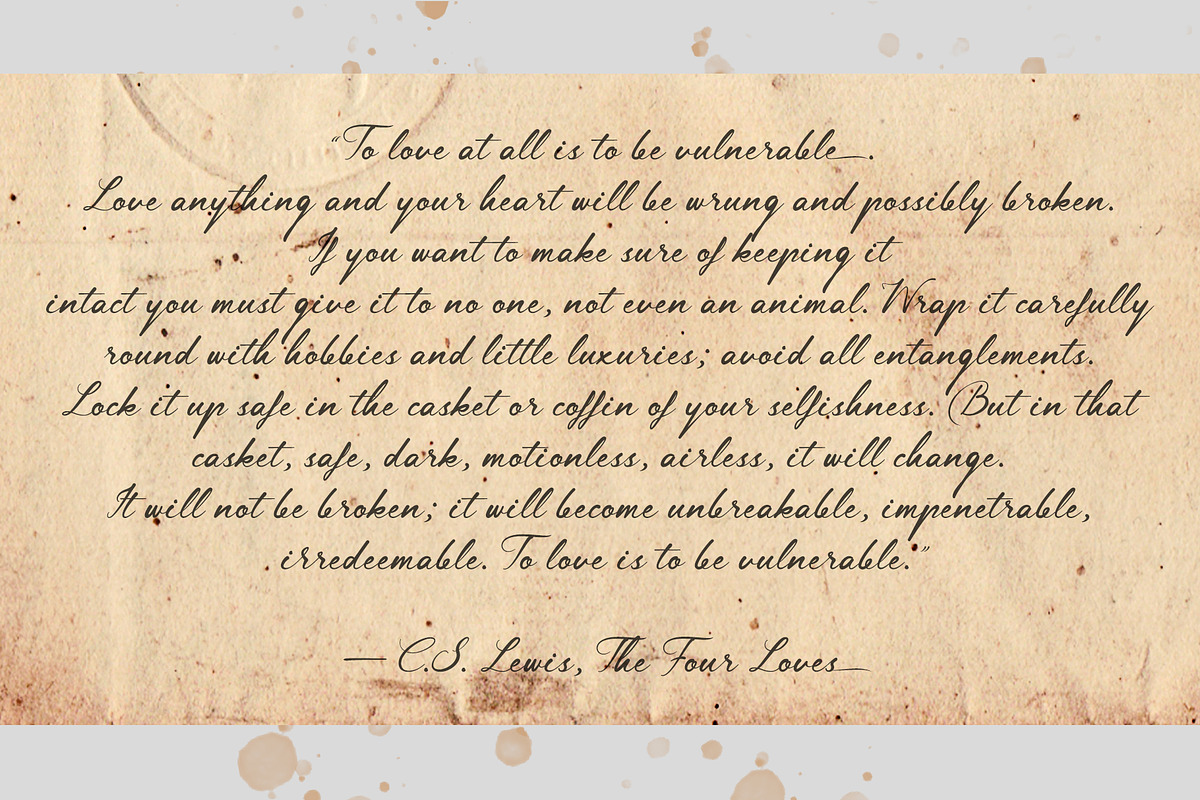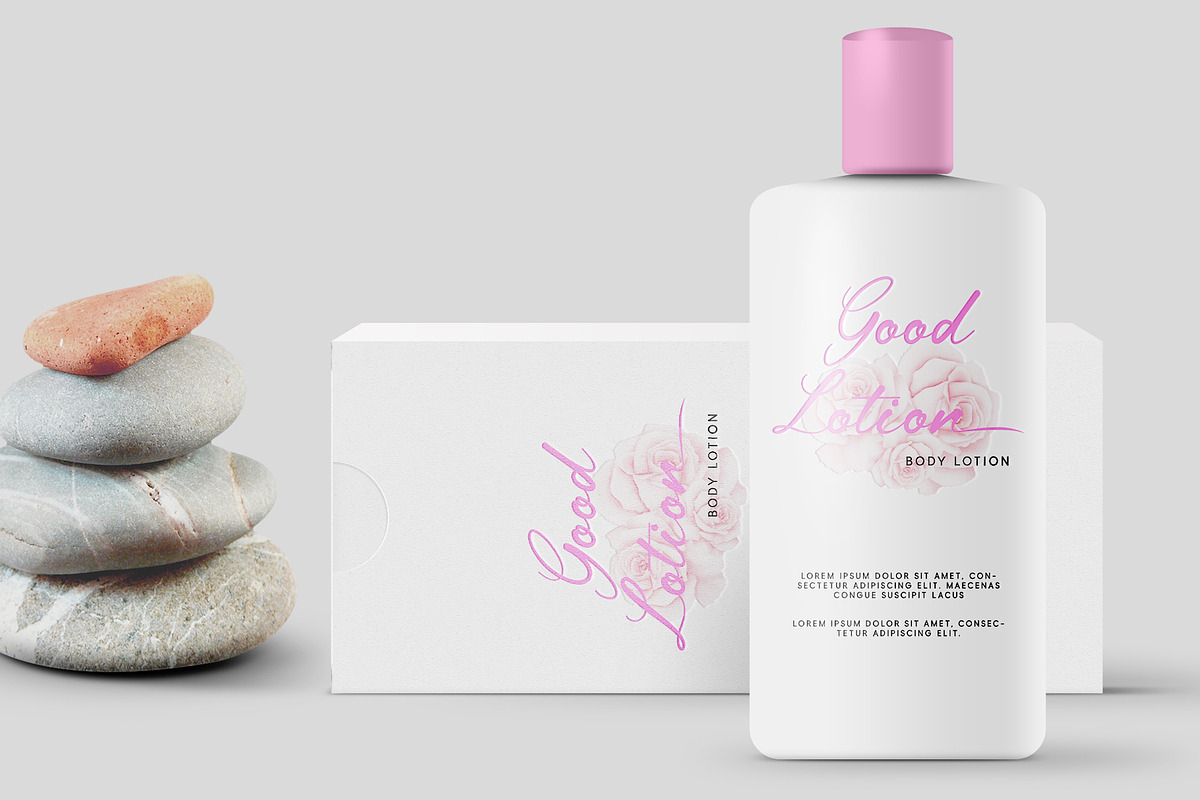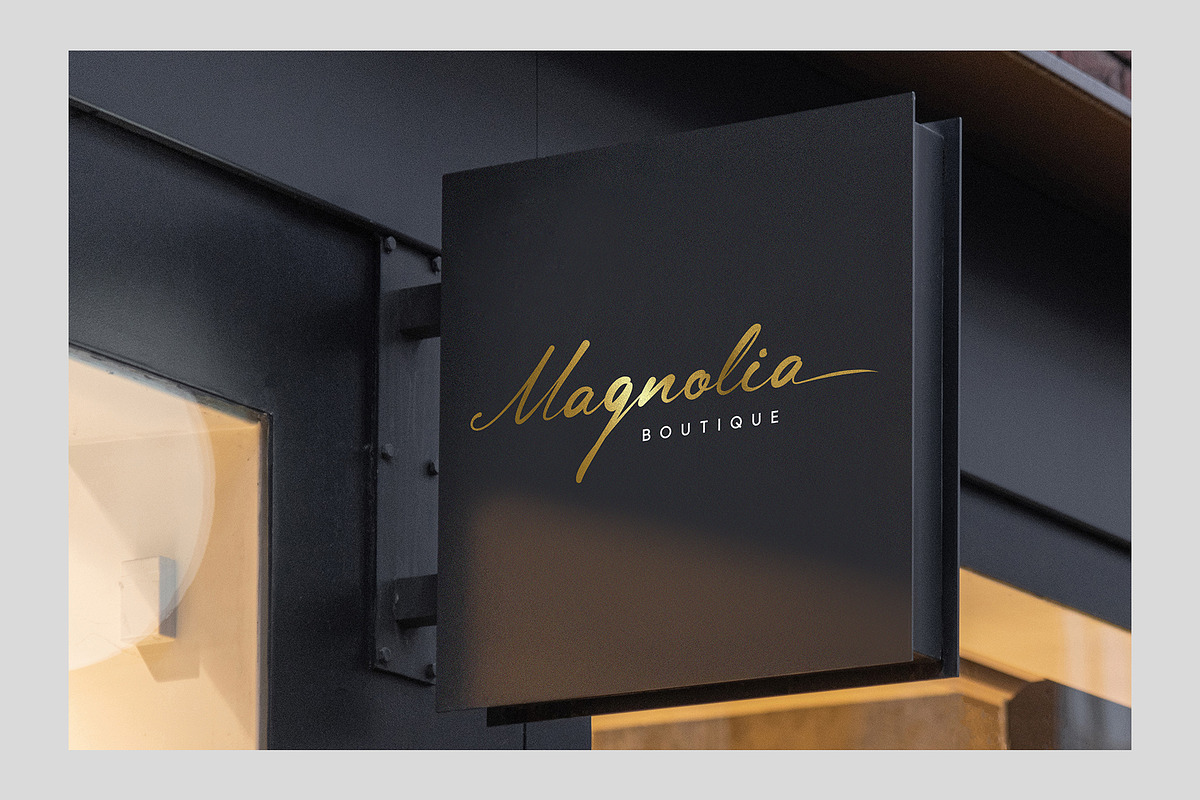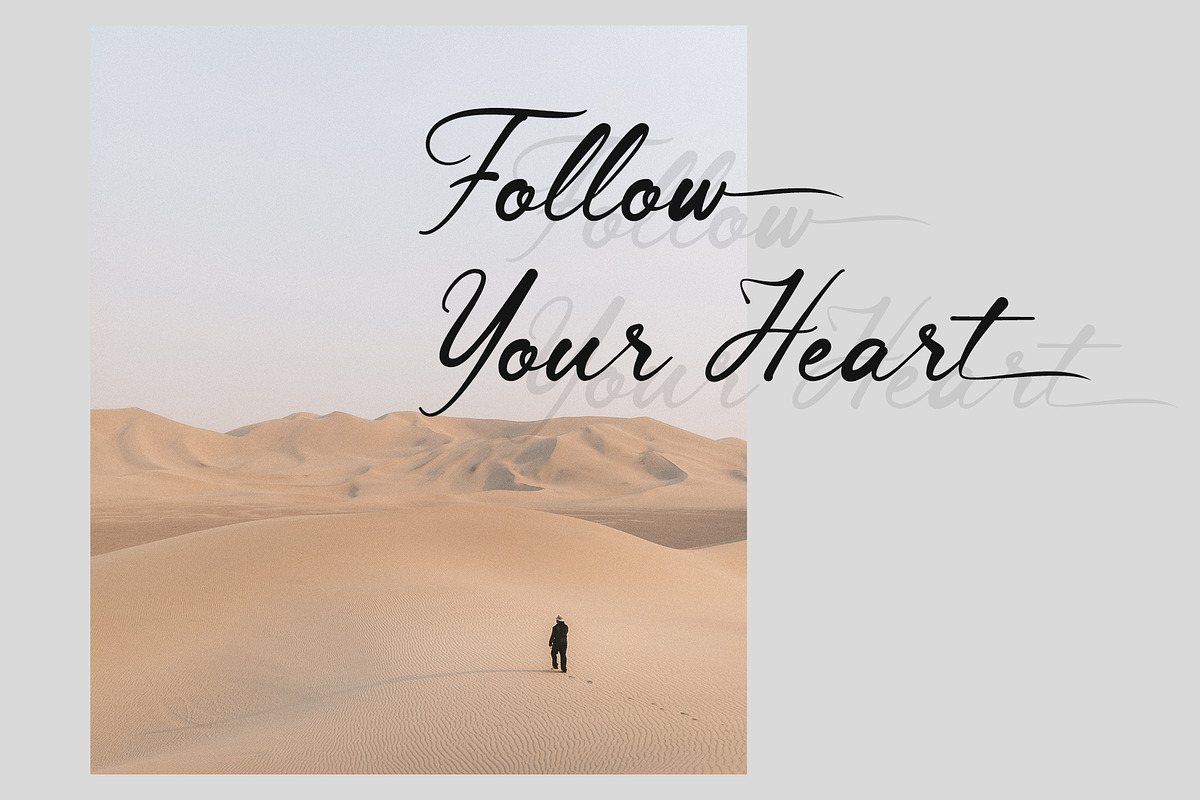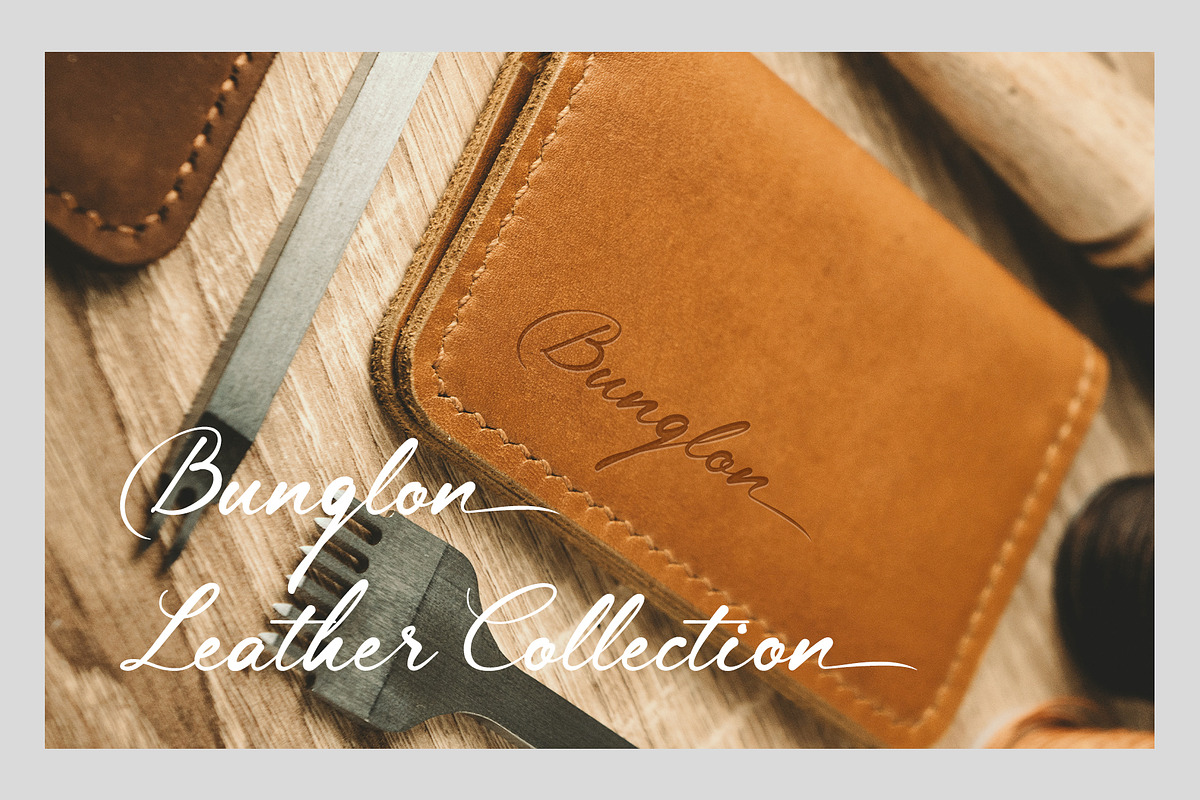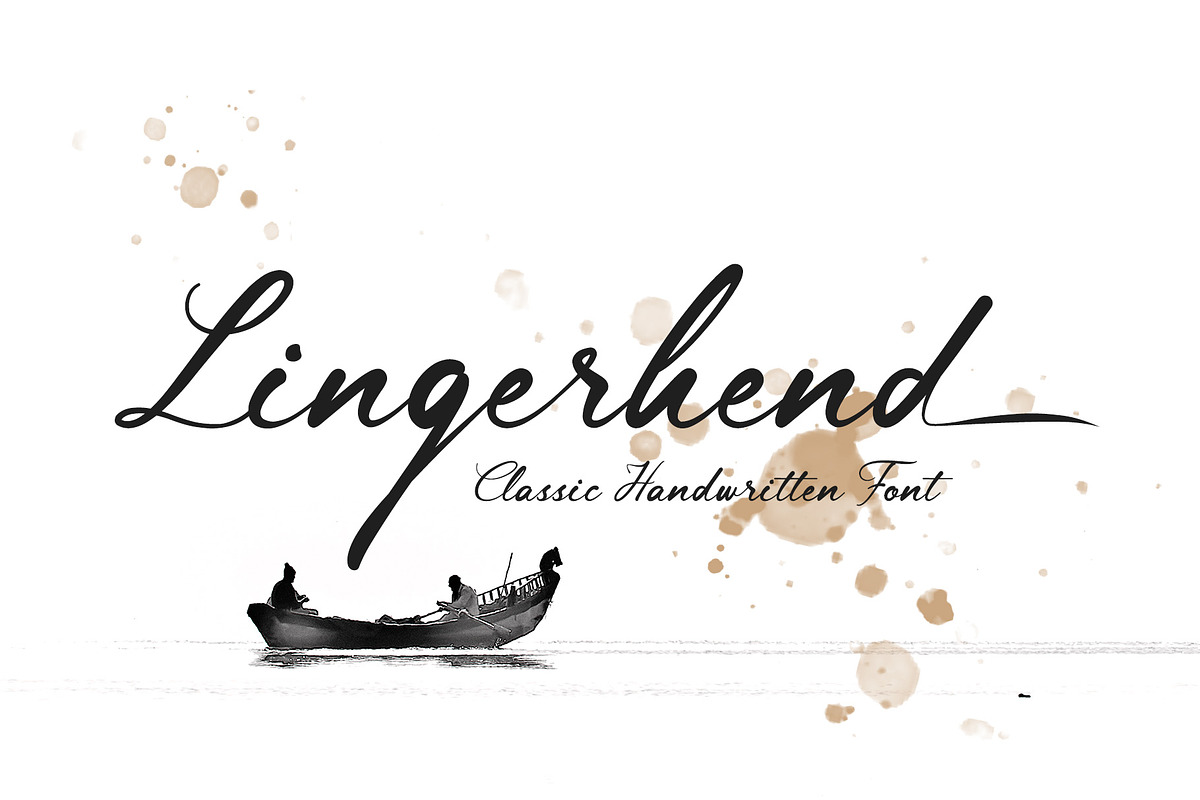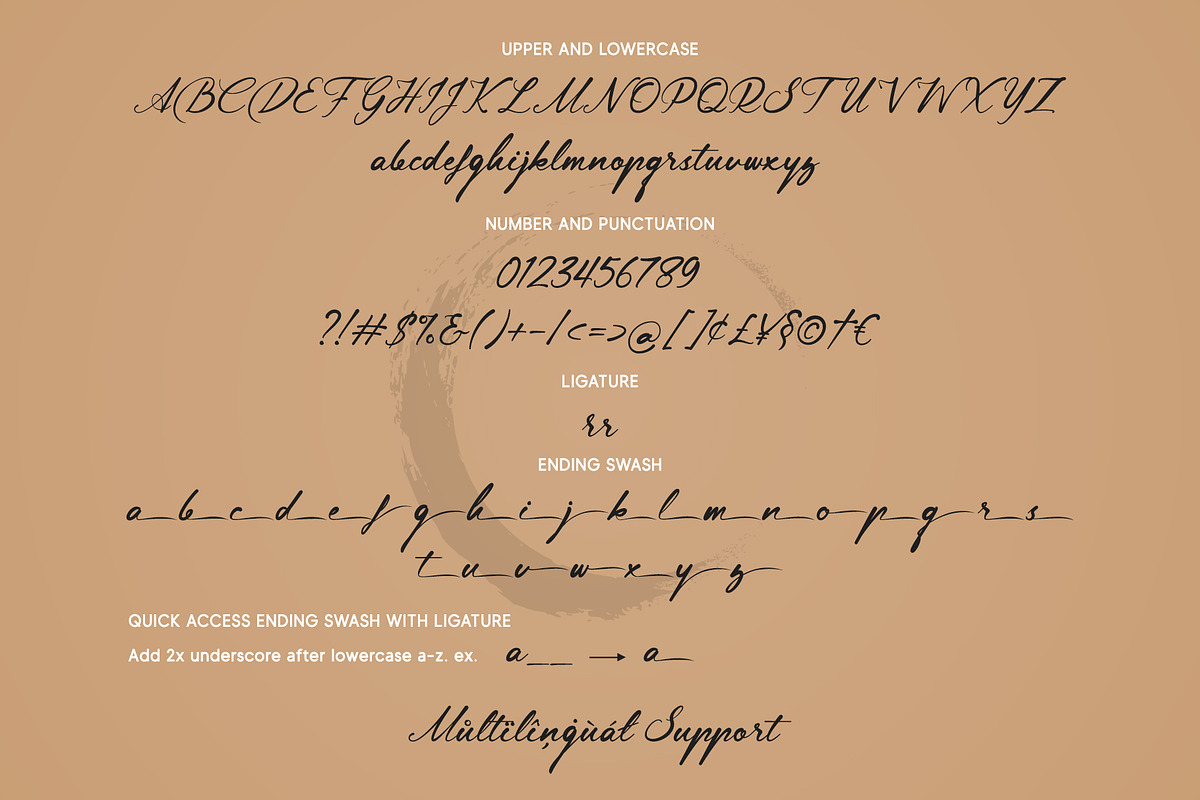
Lingerhend | Classic Script
Lingerhend is a classic handwritten script font. It’s the perfect font for wedding invitations, stationery, photography, social media posts, product packaging, greeting cards, and much more!
Quick access swash
- Add 2x underscore after lowercase a-z. Ex: a__